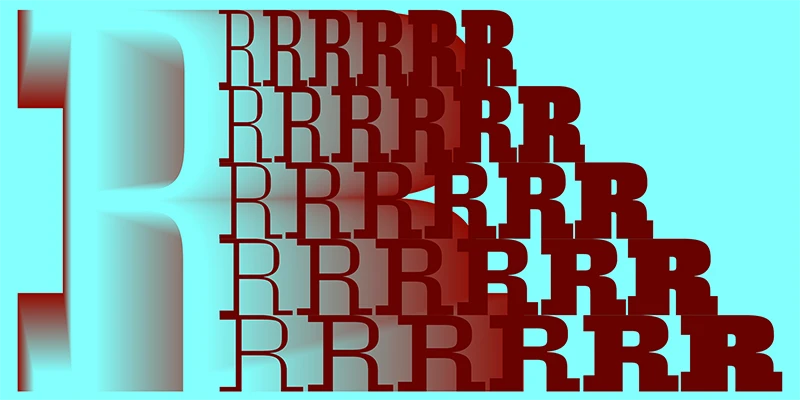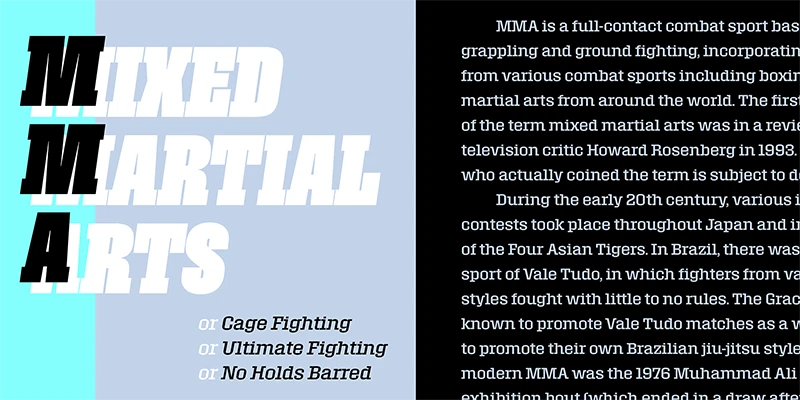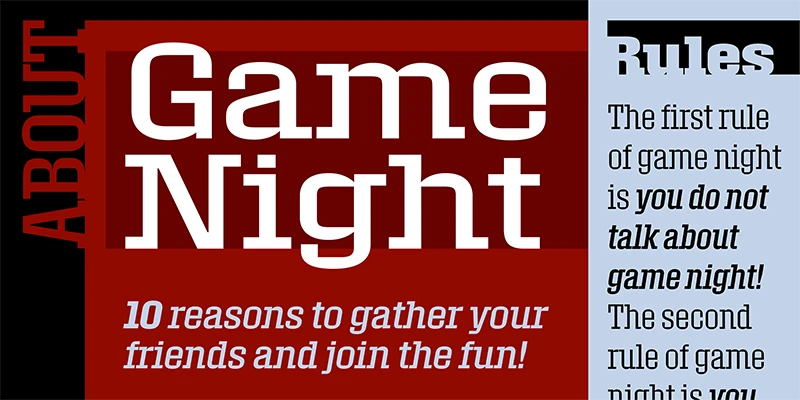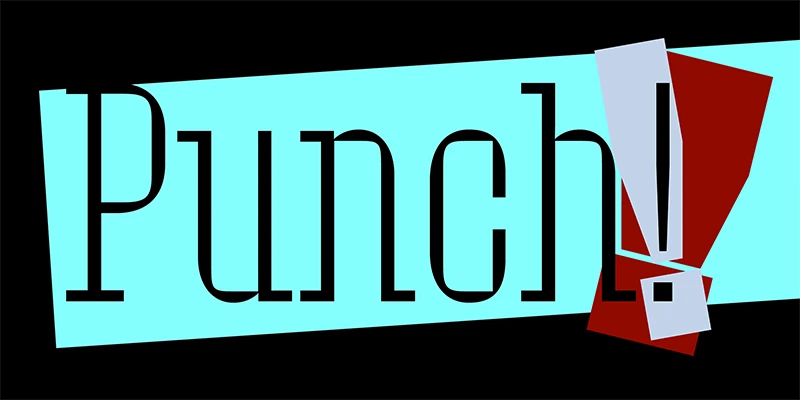
Roster
From Carter & Cone
When Matthew Carter and Jesse Ragan designed Roster, they took the visual tension of squared corners within rounded shapes to an extreme. Its outer shapes are large, curved rectangles; the inner shapes have the chisel-cut clarity of counters carved out of the letterforms. The effect, subtly seen in a text face, is a dramatic slab serif display family. It can be used in smaller sizes, but the real flex is to go big. Carter & Cone’s Roster comprises 60 styles — 6 weights, 5 widths, plus Italics.
Designed by Matthew Carter & Jesse Ragan